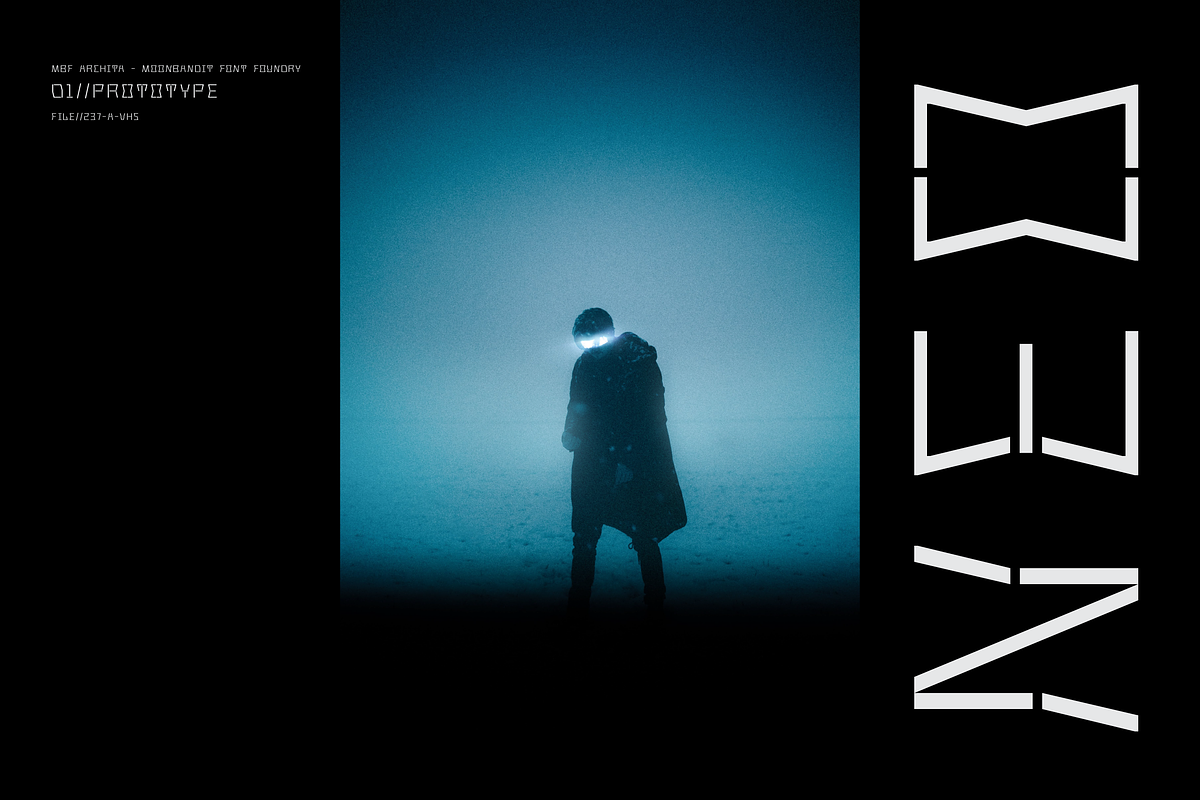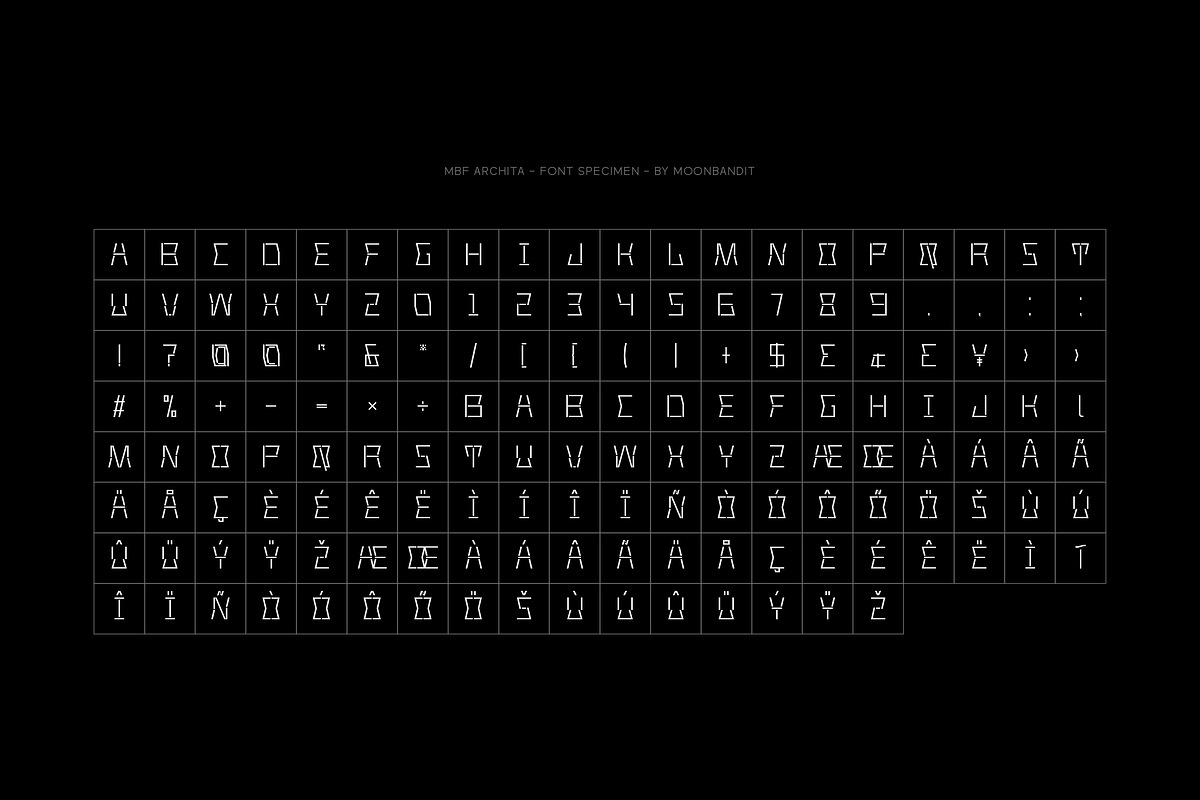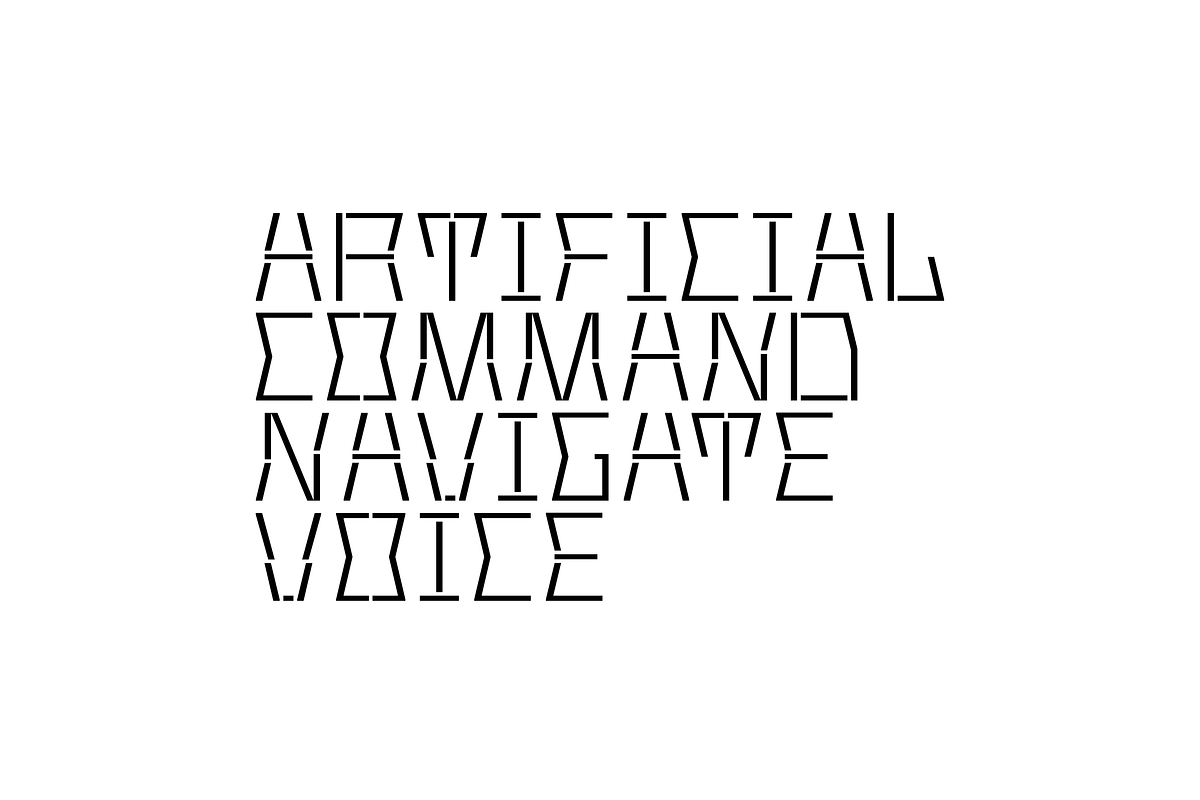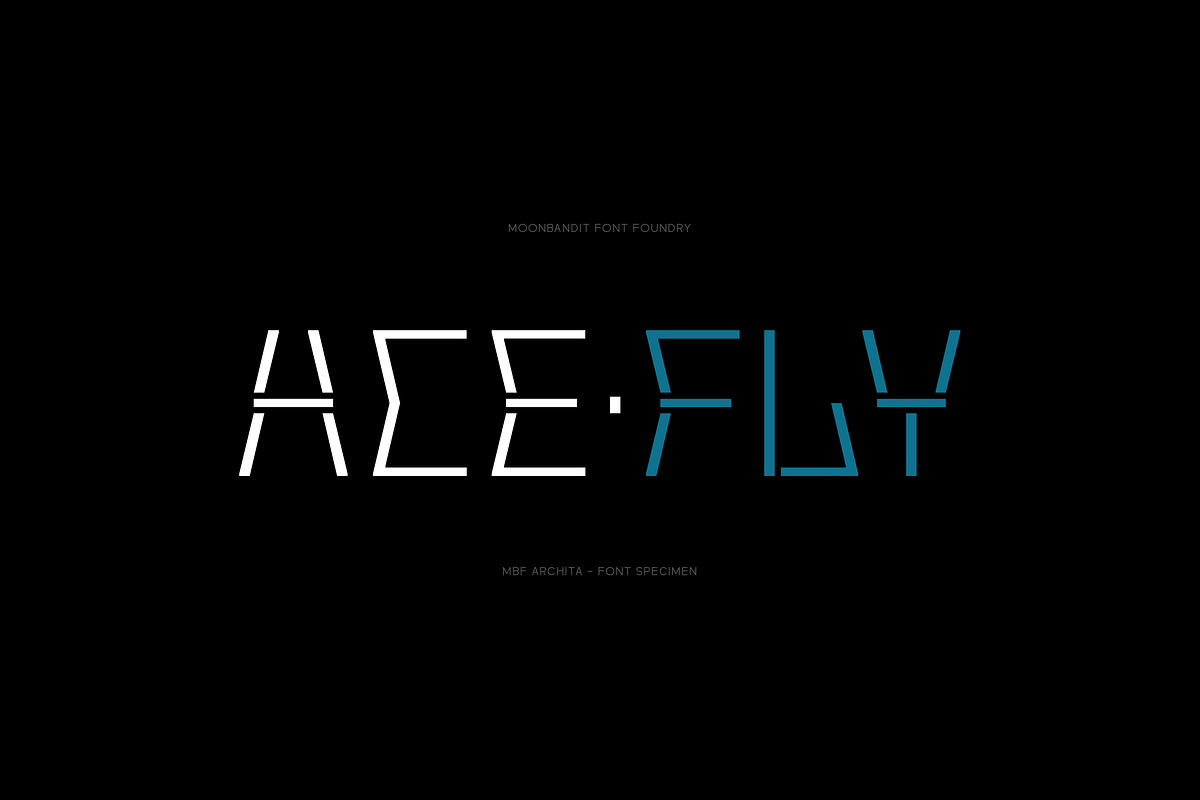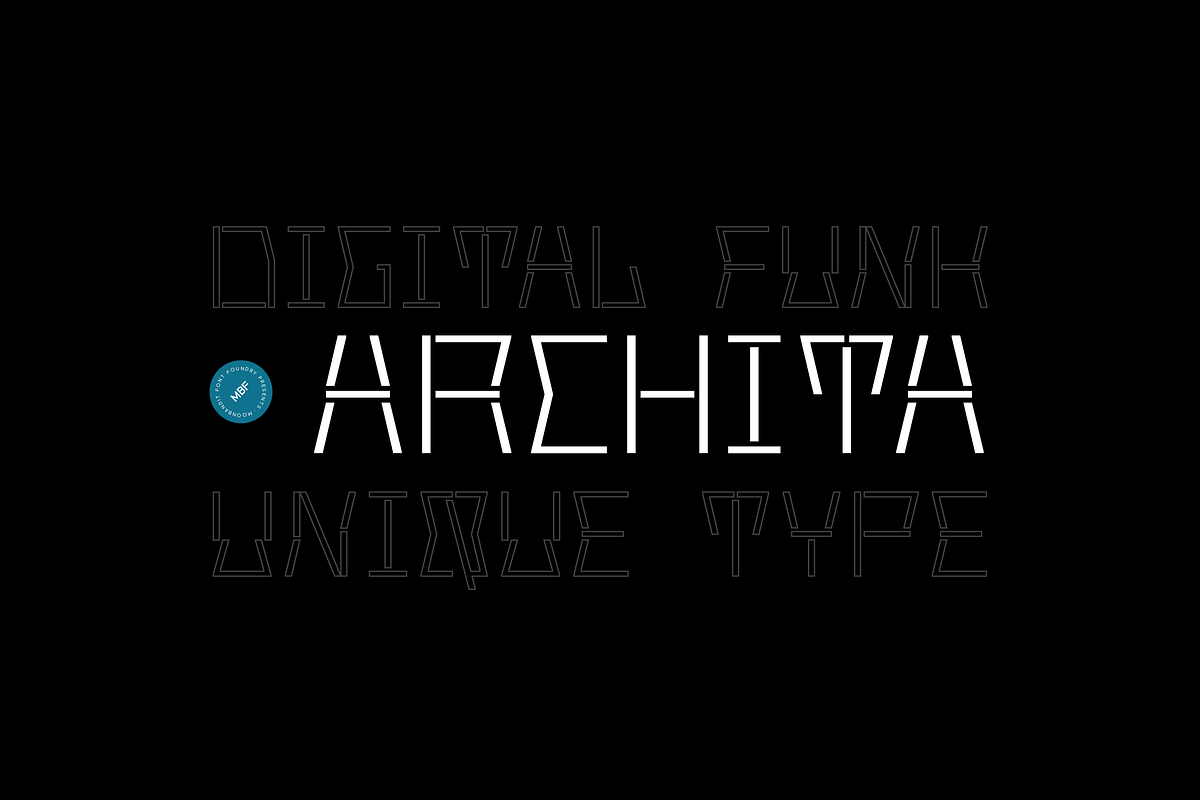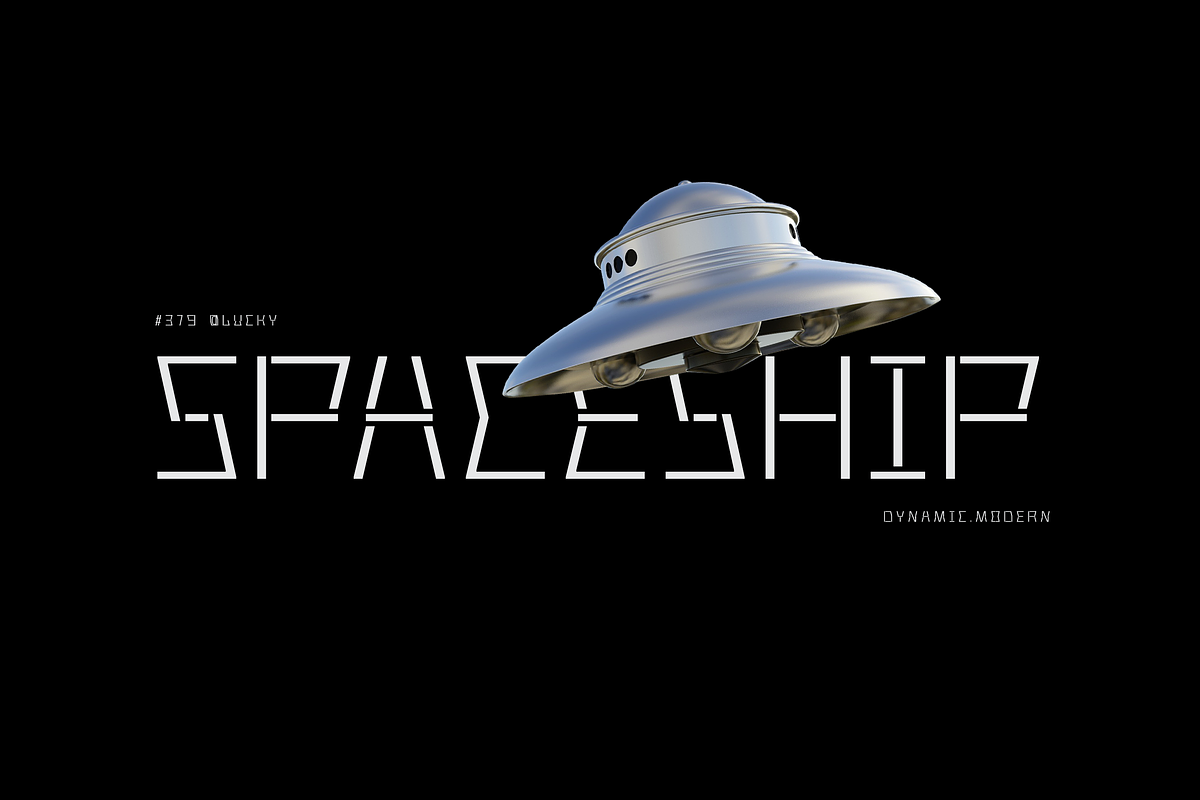
MBF Archita
MBF Archita is a creative font by moonbandit. This typeface takes a funky angle on a digital theme design giving it a non linear flowing dynamic in the overall feel. Archita best use as a title, headline, branding and even typography poster.